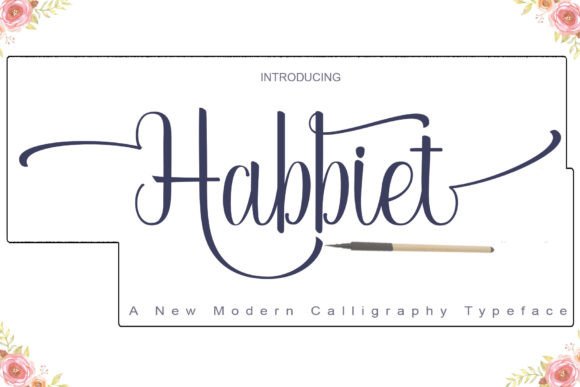
Introducing Habbiet Font, the script font that will take your designs to new heights! Created by the talented Polem, this fresh and casual handwritten font is the perfect choice for all your creative projects. Whether you're designing a poster, card, or logo, Habbiet Font will instantly add a touch of elegance and uniqueness.
With its natural and unique style, Habbiet Font stands out from the crowd, making it the ideal choice for those looking to create eye-catching designs. Its captivating curves and strokes bring life to any design, giving it a personal and artistic touch. You won't find another font quite like Habbiet!
Are you tired of using the same old fonts for your posters? Look no further, as Habbiet Font is here to revolutionize your designs. With its versatility and endless possibilities, this font opens up a world of creativity. Let your imagination run wild and watch as your designs come to life with Habbiet Font.
But that's not all! Habbiet Font is not just visually appealing; it also evokes emotions and creates a connection with your audience. Its handwritten style adds a personal and human touch, making your designs feel warm, welcoming, and relatable. Whether you're aiming for a vintage feel or a modern look, Habbiet Font can adapt to any style effortlessly.
Searching for the best font for your poster? Look no further than Habbiet Font. Its captivating and mesmerizing appearance will make your poster stand out from the rest. Grab your audience's attention and leave a lasting impression with this one-of-a-kind font.
Don't settle for average fonts when you can have the best. Habbiet Font is the epitome of excellence, combining style, uniqueness, and versatility into one package. Download Habbiet Font today and watch your designs transform into masterpieces.